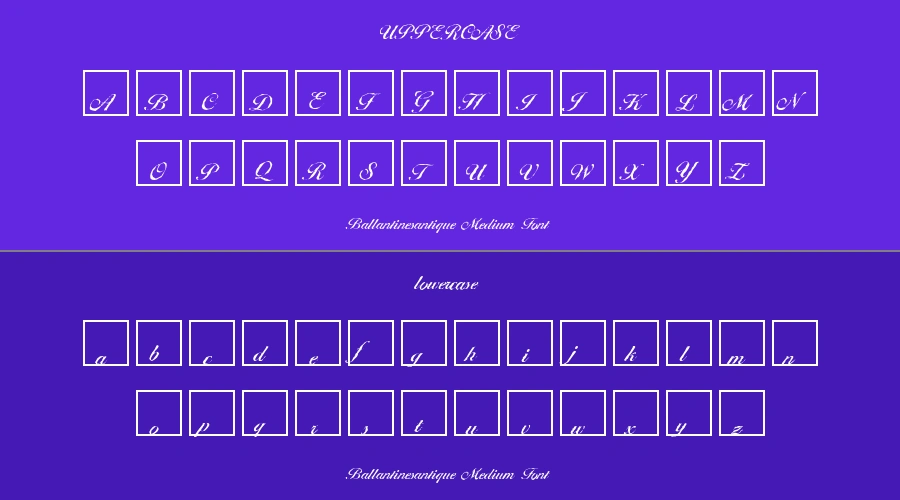
About Ballantinesantique Medium Font
Ballantinesantique Medium Font stands out for its distinctive combination of straight stems and rhythmic flow. Ideal for branding projects, it provides the flexibility and technical mastery that professional projects demand. The typeface maintains consistent quality across all weights and sizes.
Key features include refined tapered strokes and practical historical alternates, enhancing typographic expression. In featured quotes applications, Ballantinesantique Medium Font demonstrates exceptional personality transfer. The x-height and institutional acceptance contribute to its distinctive character and professional appeal.